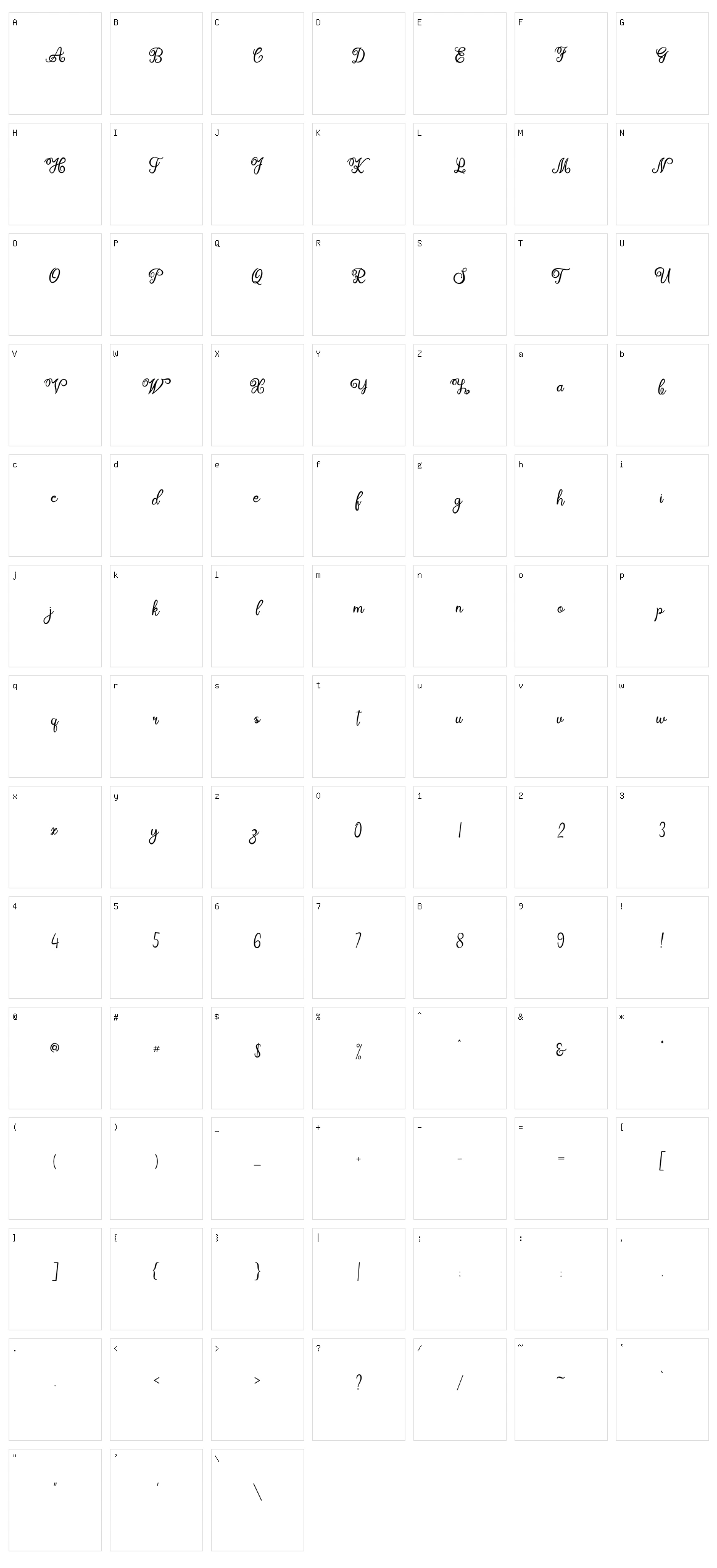
The free font Ayushita is carefully designed by Sugiharto Art Studio, showcasing a thoughtful balance of creativity and usability and falls under the Script font style. When you download the ZIP file, it contains only 88.74 KB of font files, making it lightweight and quick to download. Please review the license details below to understand permitted usage and distribution rights. If license information is not available, we recommend using this font for personal projects only or contacting the author directly for commercial usage permissions.